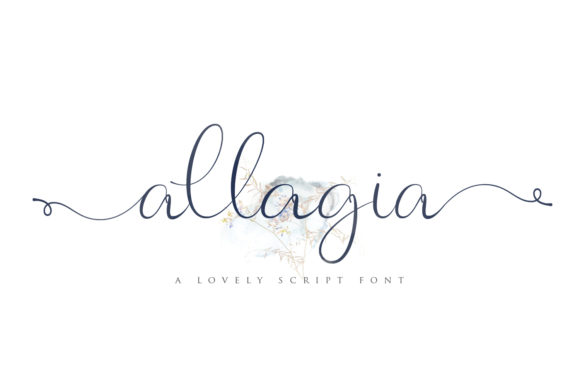
The Allagia Font: A Timeless Choice for Creative Projects
I still remember the design project that led me to discover the lovely Allagia font. I was working on a branding project for a luxury boutique hotel, and I needed a font that would convey a sense of elegance and sophistication. After hours of searching through font libraries and testing various options, I stumbled upon Allagia. Its natural feel and classic touch immediately caught my attention, and I knew I had found the perfect fit.
An Honest Review of Allagia Font
What I Love About Allagia ✨
• ✅ Natural feel: Allagia has a unique, organic look that makes it perfect for designs that require a personal touch.
• ✅ Classic and elegant: The font’s classic design ensures it will remain timeless and versatile for various design projects.
• ✅ High legibility: Allagia’s clear and clean lines make it easy to read, even at smaller font sizes.
• ⚠️ Limited availability of stylistic alternates: While Allagia has some OpenType features, it may not offer as many stylistic alternates as other fonts.
• ⚠️ May not be suitable for very long texts: Allagia’s elegant design may not be the best choice for lengthy texts, such as novels or academic papers.
The Story Behind Allagia Font
Allagia was designed with the intention of creating a font that would bring a sense of warmth and elegance to design projects. The designer aimed to craft a font that would be both classic and approachable, making it perfect for a wide range of creative applications.
Q: What type of projects is Allagia suitable for?
A: Allagia is suitable for a variety of projects, including branding, packaging, and editorial design. Its elegant and classic design makes it perfect for luxury brands, high-end products, and sophisticated publications.
Q: Is Allagia a versatile font?
A: Yes, Allagia is a versatile font that can be used for both digital and print projects. Its clear and clean lines make it suitable for body text, while its elegant design makes it perfect for headlines and titles.